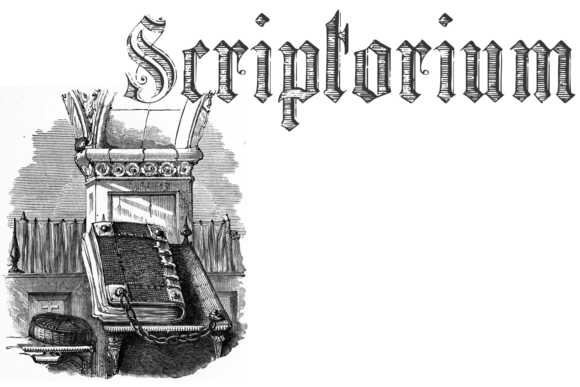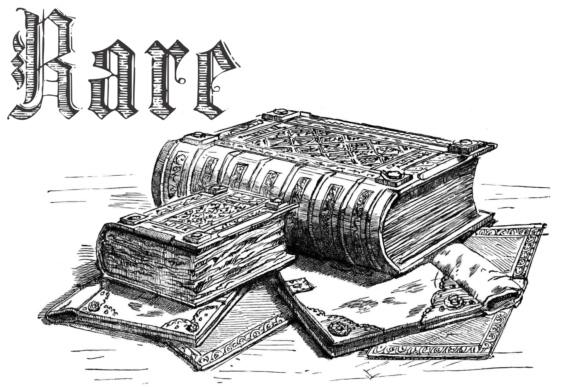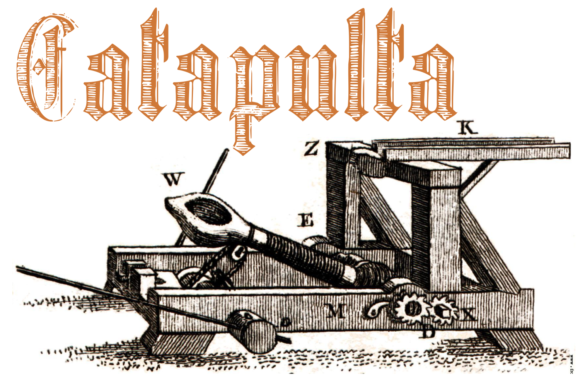
Gothic Trashed Font: A Timeless Classic Reborn
In the realm of typography, certain fonts stand out for their unique character and enduring appeal. Among these, the Gothic Trashed font holds a special place, particularly for those who appreciate the blend of traditional Gothic aesthetics with a modern twist. The Gothic Trashed is a classic Gothic typeface, remastered by Intellecta Design, bringing new life to a timeless design that has captivated designers and crafters alike.
The Origins and Evolution of Gothic Trashed
The original Gothic Trashed font was designed with a bold vision: to create a typeface that embodies the essence of Gothic architecture and medieval manuscripts, yet with a distressed, modern look that sets it apart from more conventional typefaces. This font is characterized by its dramatic strokes, intricate details, and a certain ruggedness that gives it a unique personality.
Intellecta Design, known for their dedication to typographic excellence and innovation, took this classic Gothic typeface and remastered it. Their goal was not just to refine the existing design but to enhance its versatility and usability across various platforms and applications. The remastered Gothic Trashed font boasts improved legibility, a wider range of weights, and an expanded character set, making it more adaptable for different design needs.
Key Features of Gothic Trashed Font
The remastered Gothic Trashed font comes with several key features that make it an attractive choice for designers and crafters:
• Classic Gothic Aesthetic: It retains the dramatic and ornate feel of traditional Gothic typefaces, perfect for projects requiring a historical or mystical vibe.
• Distressed Texture: The font features a unique distressed texture that adds a layer of depth and realism, making it ideal for designs that aim to evoke a sense of age and authenticity.
• Versatility: With a range of weights and an extended character set, Gothic Trashed can be used in a variety of contexts, from headlines and titles to body text.
• Legibility: Despite its ornate appearance, the font maintains a high level of legibility, ensuring that it can be effectively used in both print and digital media.
Applications of Gothic Trashed Font
The Gothic Trashed font’s unique blend of classic and modern elements makes it suitable for a wide range of applications:
• Graphic Design: It’s perfect for creating striking posters, logos, and branding materials that require a distinctive look.
• Web Design: The font can add a dramatic touch to website headers, titles, and accents, helping to create a memorable user experience.
• Packaging: For products that need to stand out on shelves, Gothic Trashed can be used to create eye-catching labels and packaging.
• Art and Craft Projects: Crafters and artists can use this font for their projects, such as handmade cards, DIY decorations, and other creative endeavors.
The Gothic Trashed font, remastered by Intellecta Design, is a powerful tool for anyone looking to add a touch of Gothic elegance and modern grit to their designs. Its unique combination of classic aesthetics, distressed texture, and enhanced usability makes it a versatile choice for a wide range of projects. Whether you’re a professional designer or a crafting enthusiast, Gothic Trashed offers the potential to elevate your work and make it stand out in a crowded creative landscape.
With its timeless appeal and contemporary twist, the Gothic Trashed font is sure to inspire creativity and bring a distinctive character to any project it’s a part of. As typography continues to evolve, fonts like Gothic Trashed remind us of the enduring power of well-designed lettering to communicate, to evoke emotion, and to create lasting impressions.